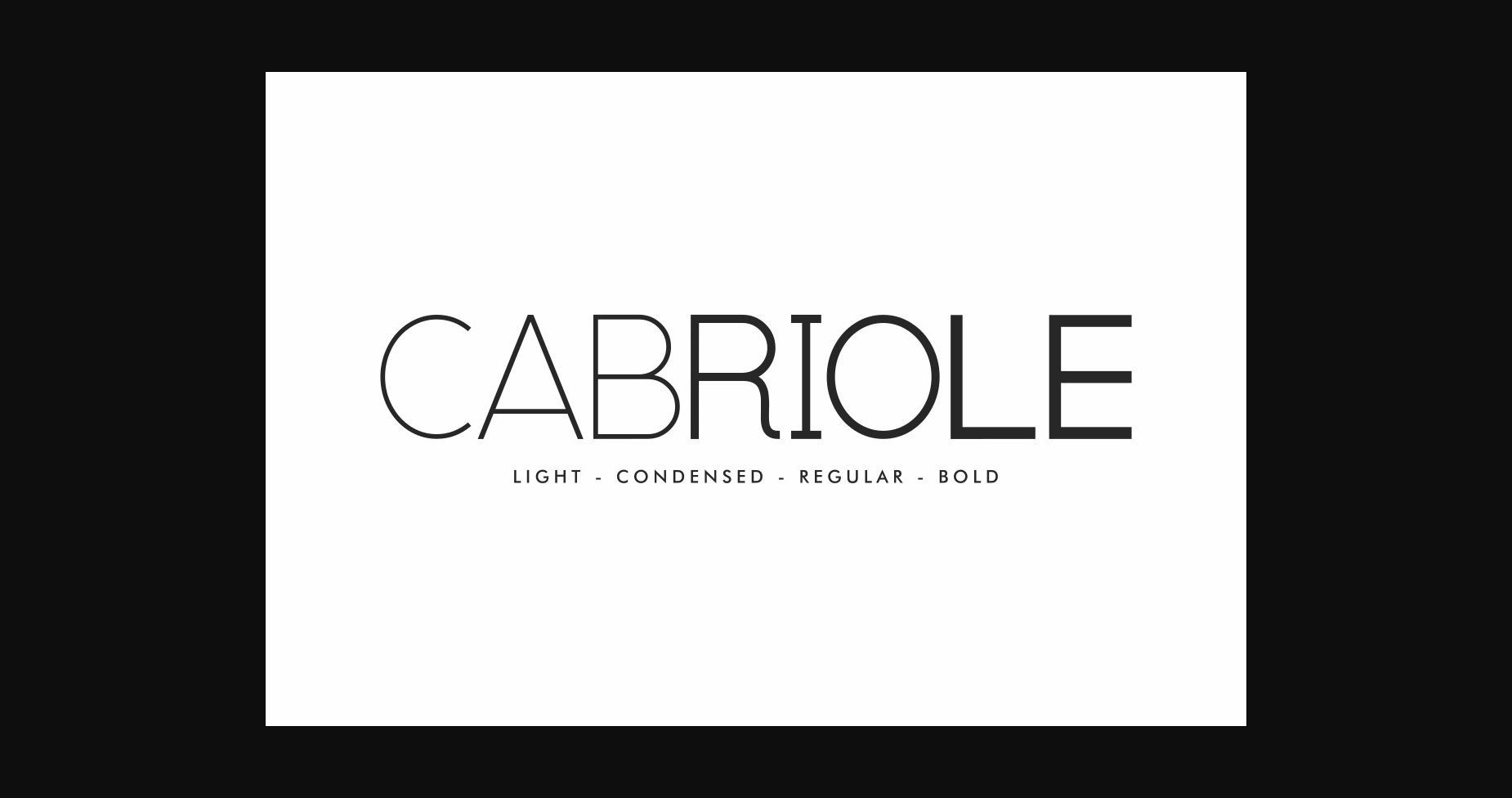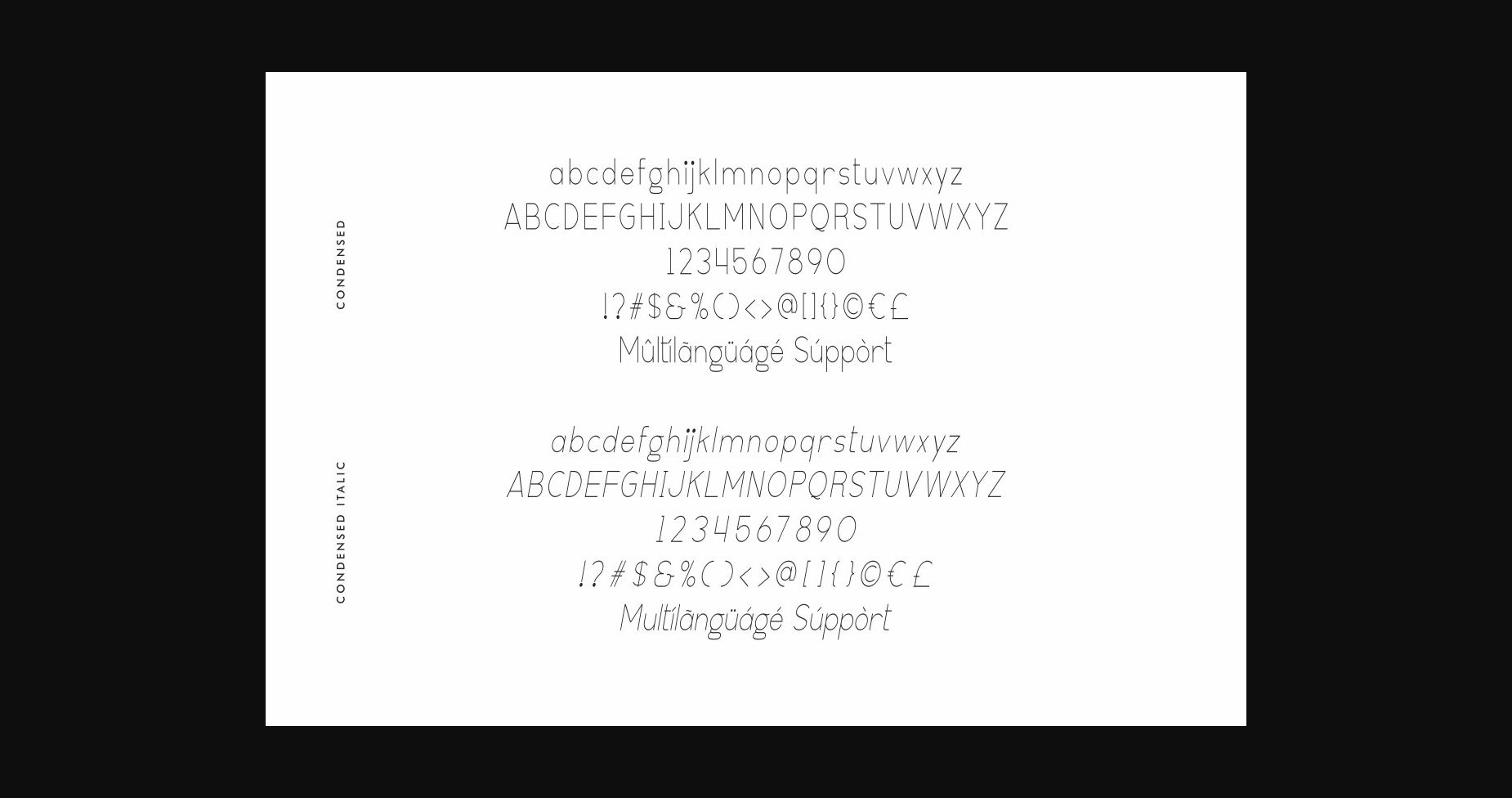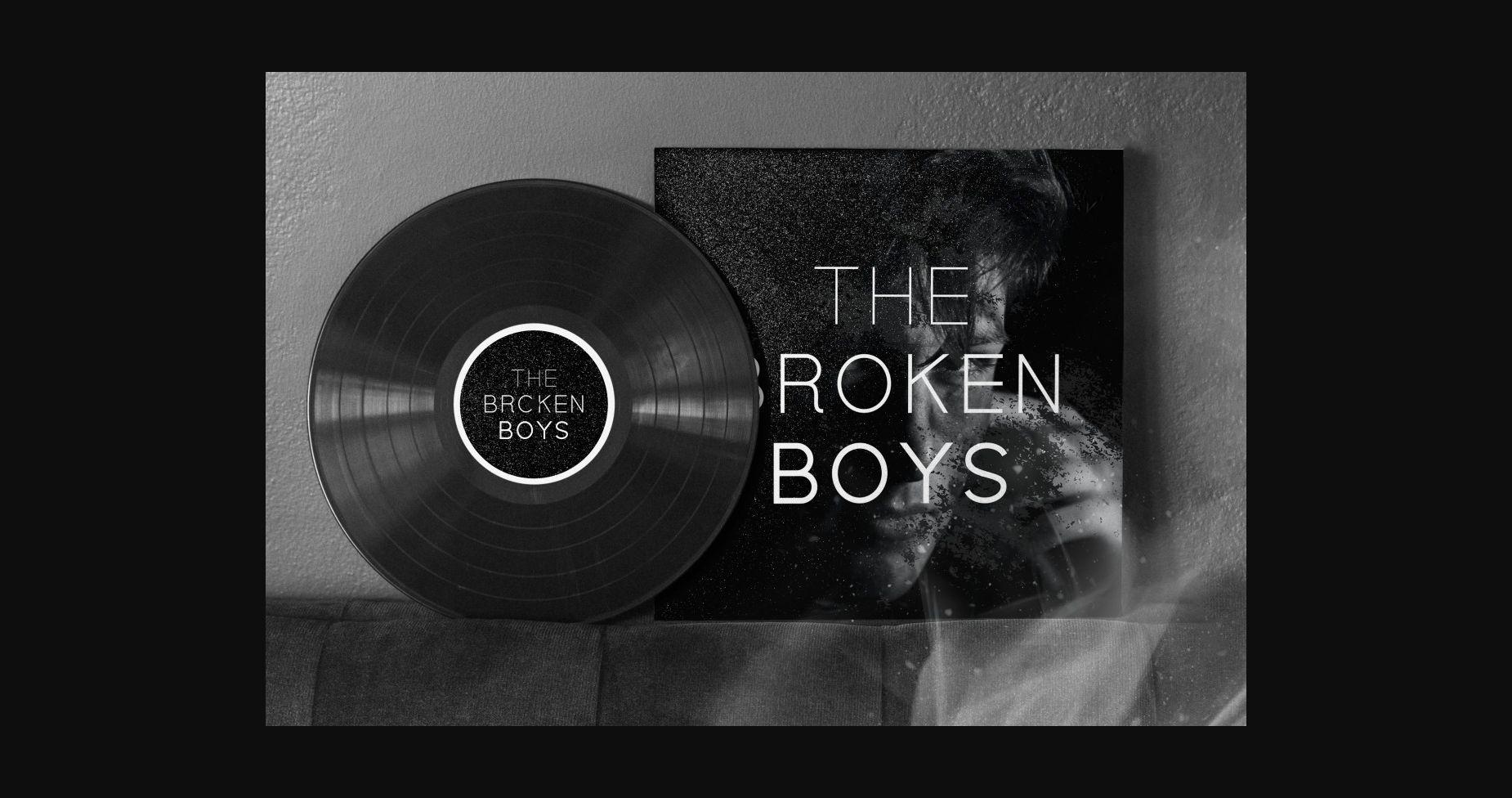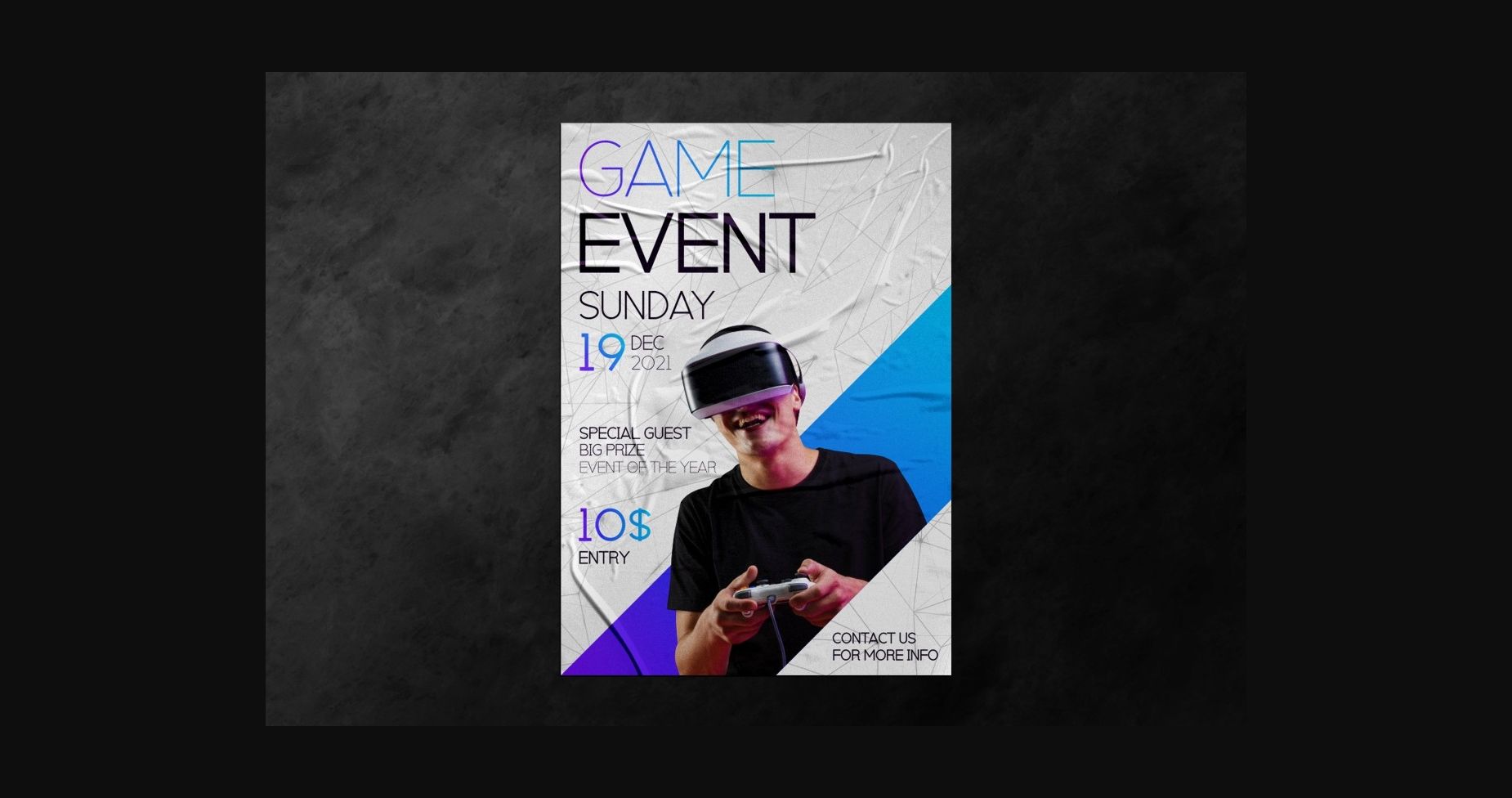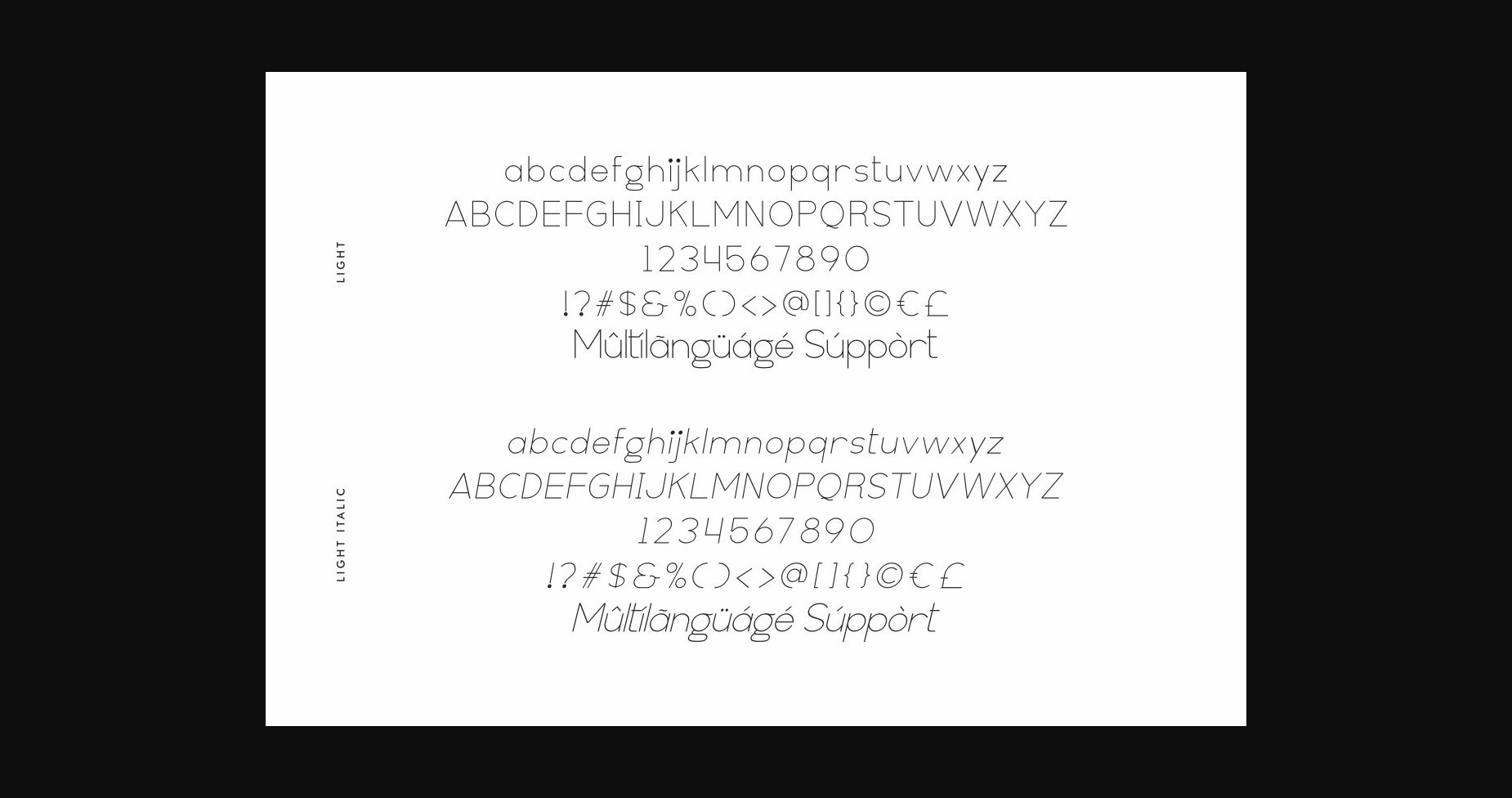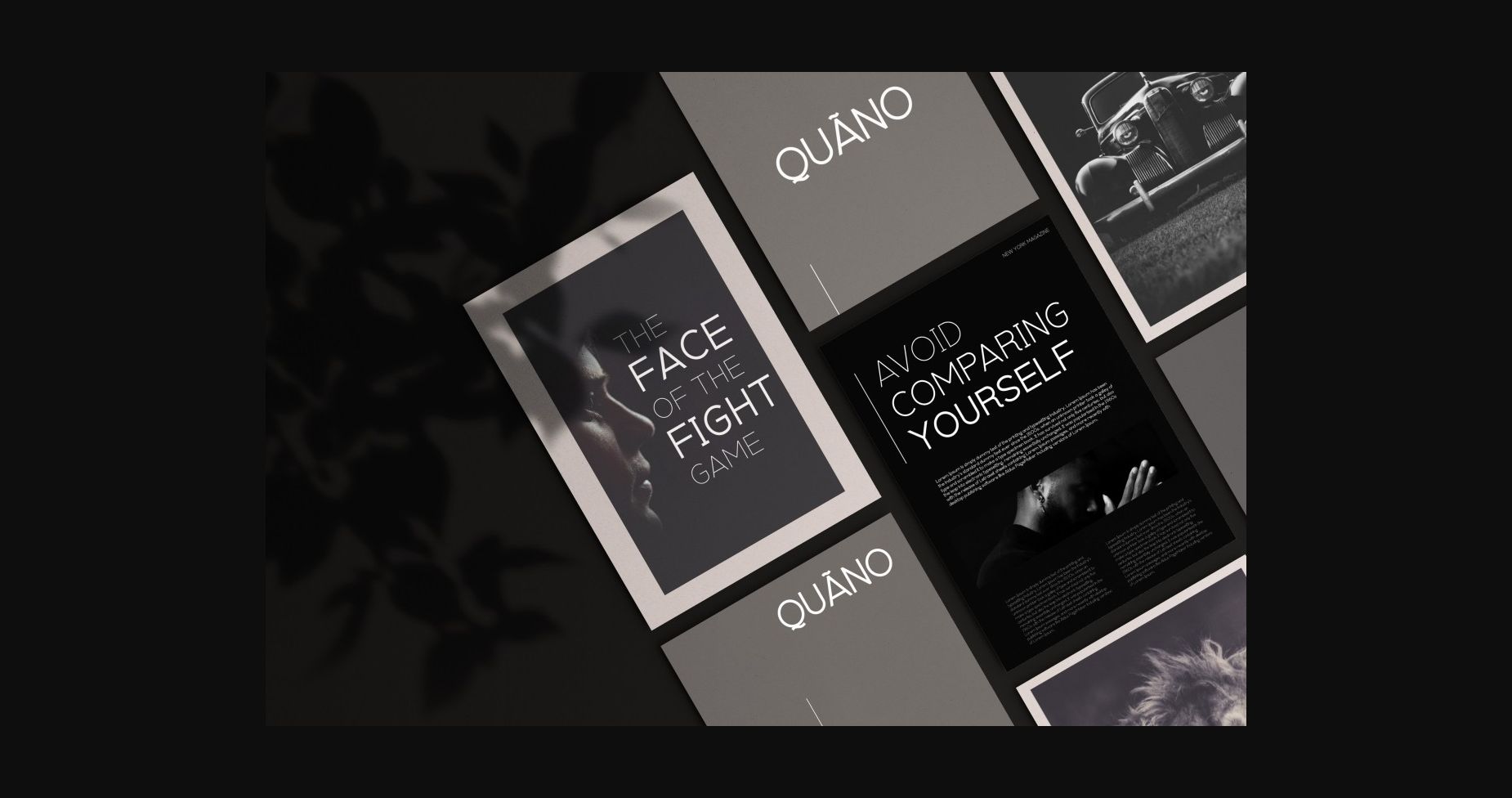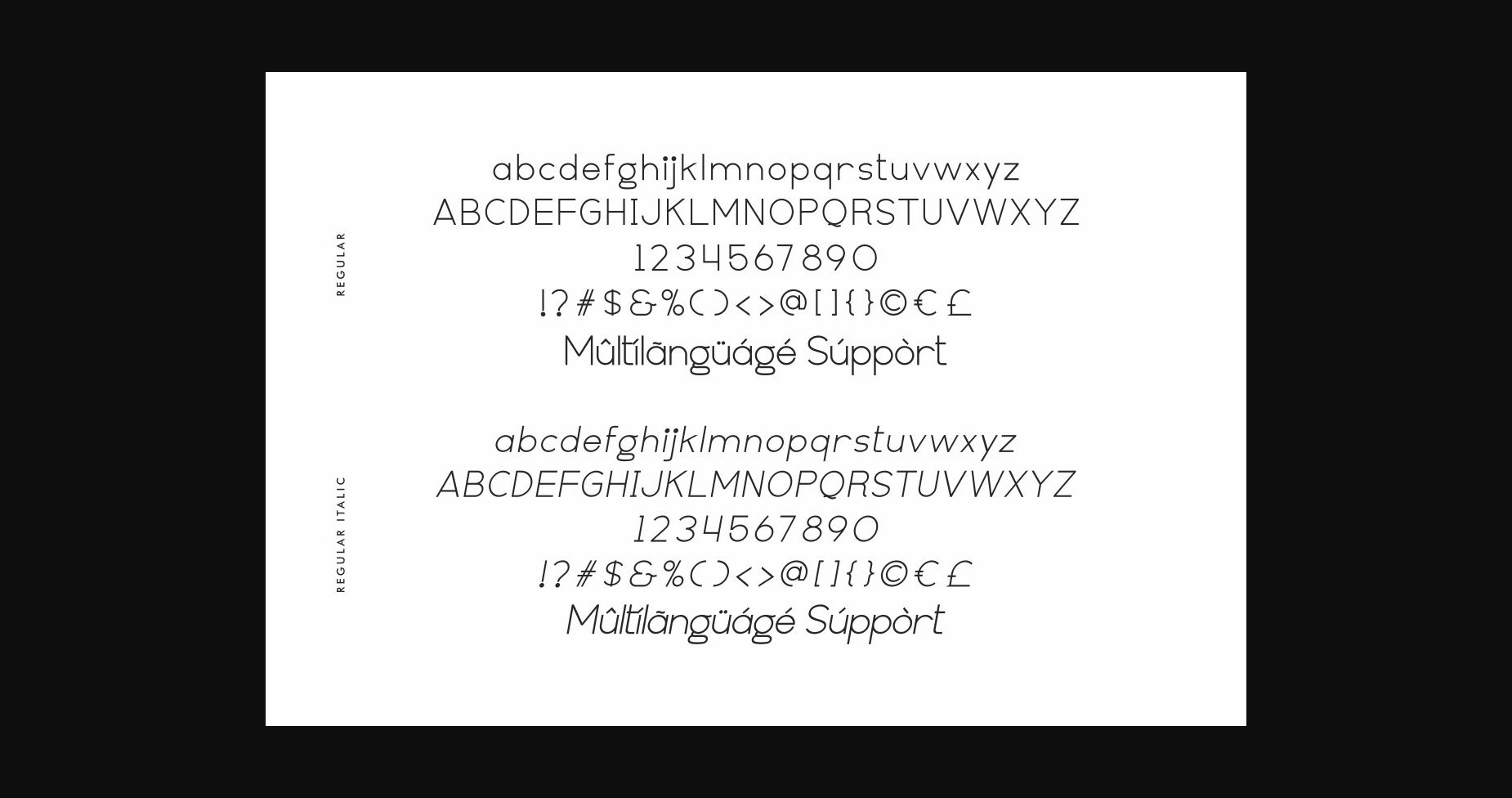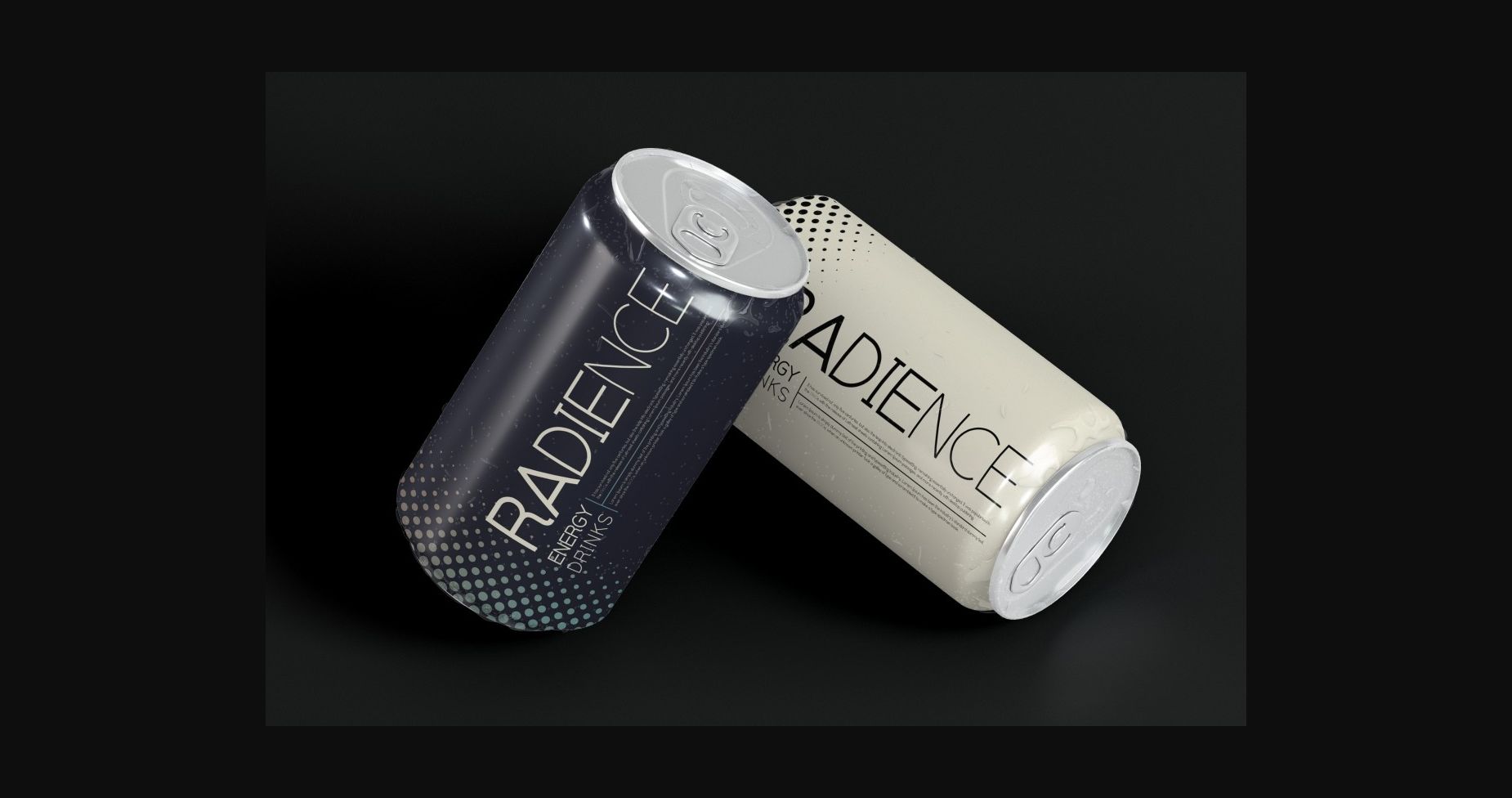
Cabriole Font
About Cabriole Font
Cabriole is a clean and sans serif font. No matter the topic, this font will be an incredible asset to your fonts’ library, as it has the potential to elevate any creation.